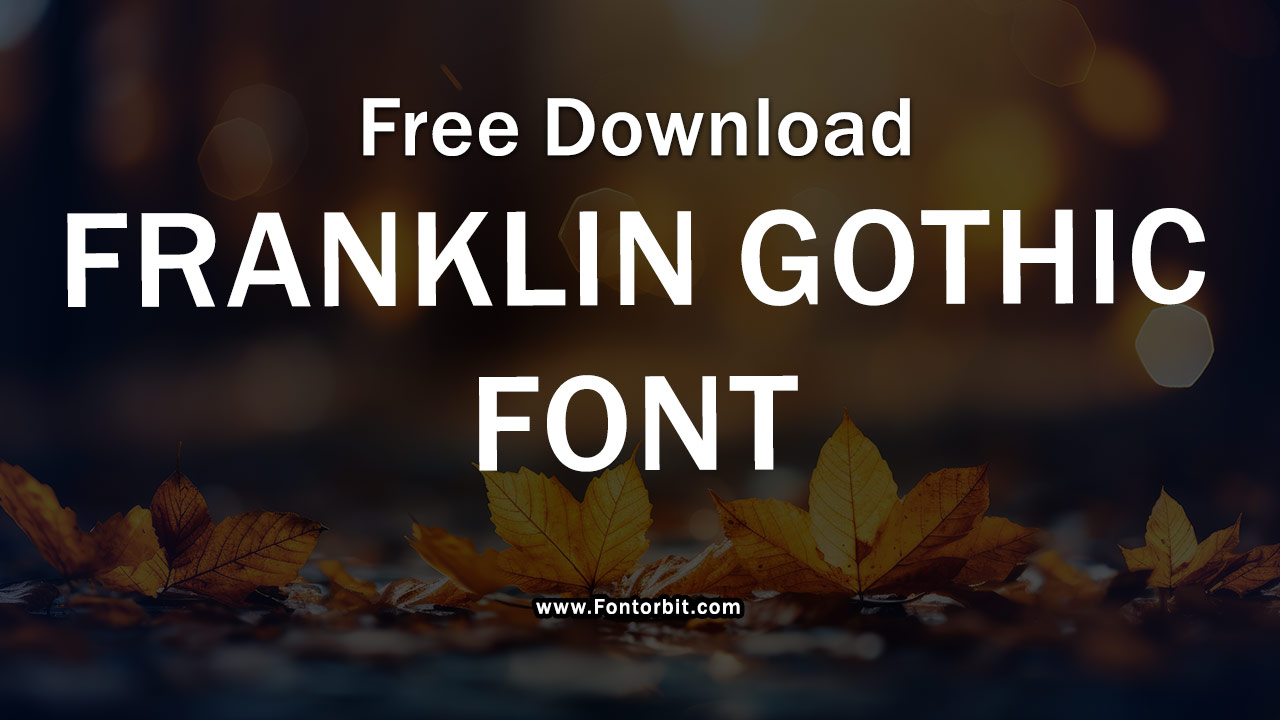
Franklin Gothic Font is a timeless, grotesque sans-serif typeface designed by the renowned American type designer Morris Fuller Benton in 1902.
Named after the iconic Benjamin Franklin, this font is known for its robust, straightforward appearance, making it a staple in print and digital media. People widely recognize its classic newspaper look, making it a popular choice for editorial design and other professional applications. Franklin Gothic is available for free for personal use.
The Franklin Gothic Font Family Includes
People note Franklin Gothic’s design for its bold, clear lines and functionality. This typeface family includes:
- Franklin Gothic ATF Thin
- Franklin Gothic ATF Thin Italic
- Franklin Gothic ATF Extra Light
- Franklin Gothic ATF Extra Light Italic
- Franklin Gothic ATF Light
- Franklin Gothic ATF Light Italic
- Franklin Gothic ATF Regular
- Franklin Gothic ATF Italic
- Franklin Gothic ATF Medium
- Franklin Gothic ATF Medium Italic
- Franklin Gothic ATF Bold
- Franklin Gothic ATF Bold Italic
- Franklin Gothic ATF Black
- Franklin Gothic ATF Black Italic
- Franklin Gothic ATF Heavy
- Franklin Gothic ATF Heavy Italic
- Franklin Gothic ATF Ultra
- Franklin Gothic ATF Ultra Italic
Franklin Gothic’s clear and strong style makes it a preferred choice for a wide range of projects. It is frequently used in environments where readability and impact are key, such as:
- GIFs
- Video games
- Menus
- Websites
- Title sequences and end credits
- Tutorial videos
- Social media ads, banners and graphics
- Public transportation navigation
- Animated logos
Graphic designers favor Franklin Gothic and widely use it in various media due to its versatility. It has been used by major newspapers, magazines, and websites, adding a classic yet modern touch to the printed word and digital interfaces. Notable designers like Jeffrey Zeldman have praised Franklin Gothic for its clear and approachable aesthetic.
Franklin Gothic Font is a robust, versatile typeface that adds a professional touch to any design project. While it may not be suited for more decorative or playful uses, it excels in situations where clarity, impact, and readability are paramount. Pair Franklin Gothic with other modern sans-serif fonts or use it as a standalone typeface to create a cohesive, professional look.
Q1: What Makes Franklin Gothic Suitable For Editorial Design?
Its strong, clear lines and classic aesthetic make Franklin Gothic an excellent choice for headlines and body text in newspapers and magazines, ensuring readability.
Q2: How Can Franklin Gothic Be Paired With Other Fonts?
You can pair Franklin Gothic with serif fonts like Times New Roman for a classic look or with lighter sans-serif fonts like Helvetica for a modern, clean appearance.
Q3: What Are The Best Applications For Using Franklin Gothic?
Franklin Gothic is ideal for advertising, editorial content, web design, corporate branding, and any print media requiring a strong, authoritative typeface.
Q5: How Does Franklin Gothic Compare To Helvetica?
While both are sans-serif fonts, Franklin Gothic has a more robust and industrial feel, making it better suited for impactful headlines. In contrast, Helvetica stands out for its neutrality and versatility across various applications.
Q6: Can Franklin Gothic Be Used In Digital Design?
Yes, Franklin Gothic’s legibility and clear design make it an excellent choice for digital design projects, including websites, digital ads, and online publications.